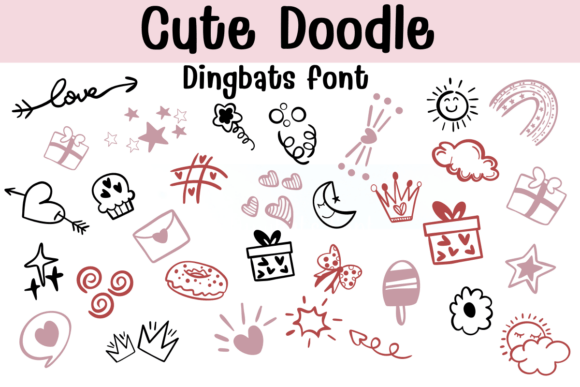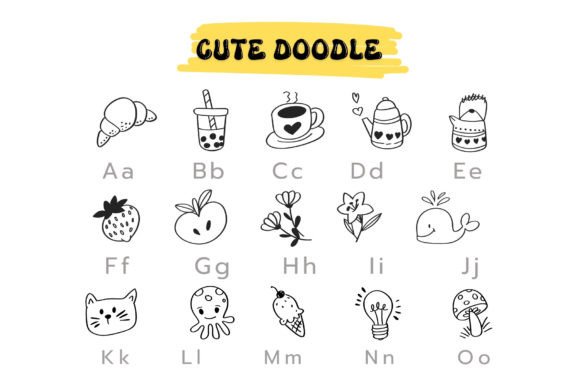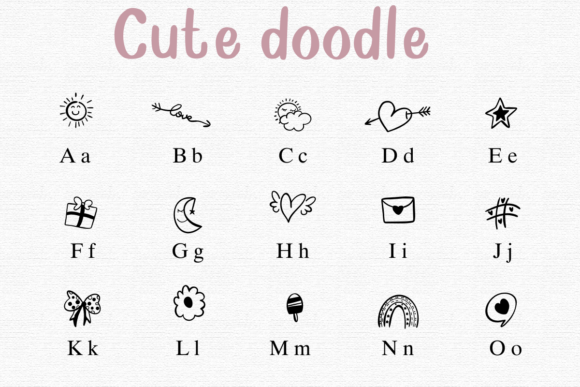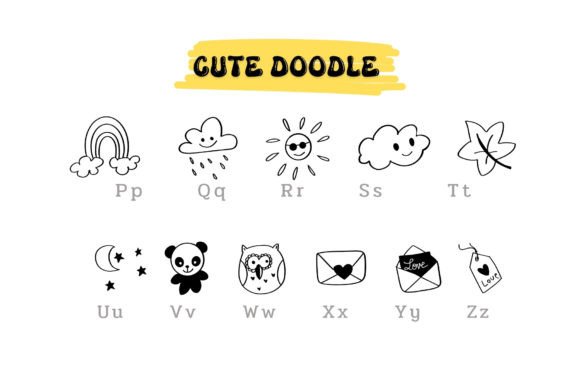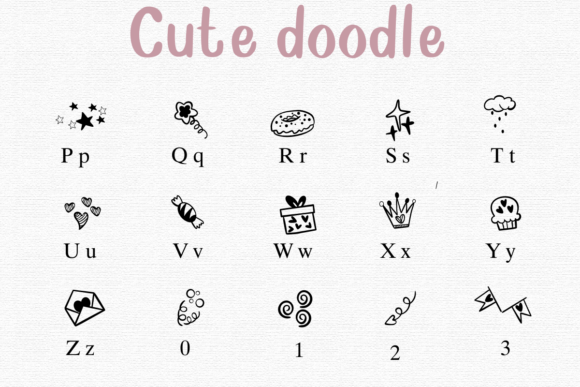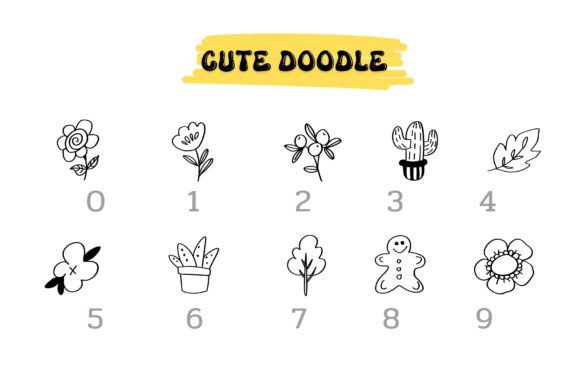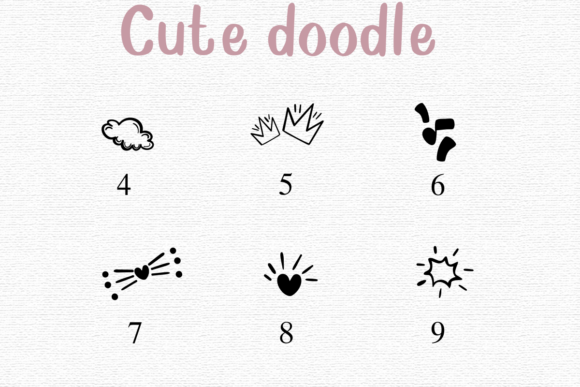
Cute Doodle Font: Whimsical Dingbats for Cricut & DIY Crafts
About the Cute Doodle Font
The Cute Doodle Font is here to transform your projects with its distinctive character and style. Cute Doodle is a fun and playful dingbat font filled with charming designs. It features adorable icons like hearts, butterflies, flowers, and other cute shapes, perfect for adding a touch of whimsy to your projects.
Cute Doodle thrives in projects requiring a lighthearted and approachable aesthetic. It’s ideal for children’s books, greeting cards, social media graphics, and packaging for playful products. Use it sparingly in logos or as an accent within larger designs, focusing on headlines or short, impactful phrases. Avoid using it for lengthy body text or in user interfaces where legibility is paramount.
Its playful nature pairs well with clean sans-serif fonts like Open Sans or Lato for a balanced contrast. For a more whimsical feel, consider pairing it with a handwritten script font, but ensure legibility remains a priority. Avoid pairing it with heavy serif fonts, which might clash with its lighthearted energy.
Cute Doodle’s overall personality is undeniably cheerful and friendly, best suited for brands targeting a young or youthful audience. Its charm lies in its decorative nature, making it a powerful tool for adding visual interest to specific design elements rather than forming the foundation of a complete design system.